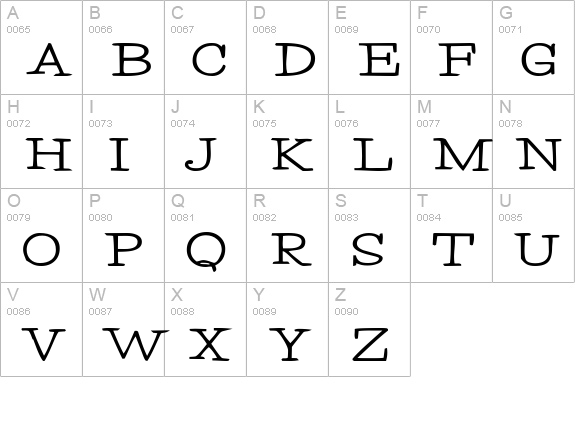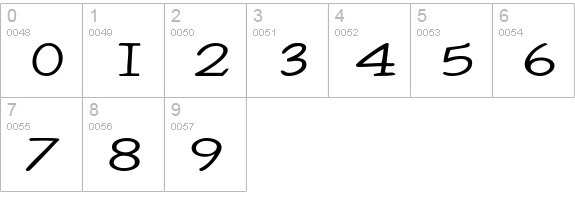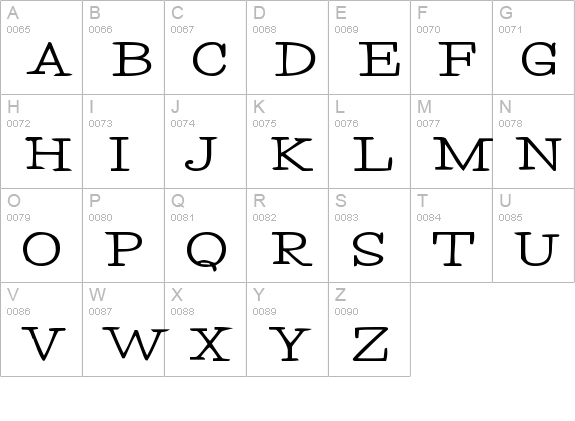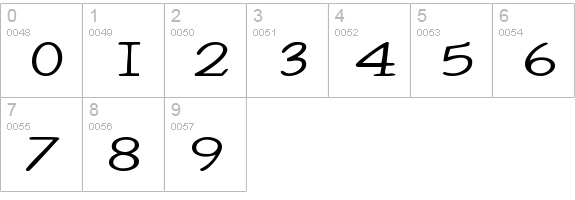
Merrill Bold is a strong, high-contrast variant in the Merrill typeface family \xE2\x80\x94 well suited to headlines, attention-grabbing titles, and strong calls-to-action.
Introducing Merrill Bold font, a modern and versatile typeface that exudes confidence and sophistication. With its strong, bold strokes and clean lines, Merrill Bold is perfect for making a statement in any design project. Whether you're creating a sleek logo, eye-catching poster, or striking headline, this font will surely captivate your audience. What makes Merrill Bold even more appealing is that it is available for free download at FontsMarket.com. This means you can easily access this high-quality font and elevate your designs without breaking the bank. Say goodbye to limitations and unleash your creativity with Merrill Bold font today.